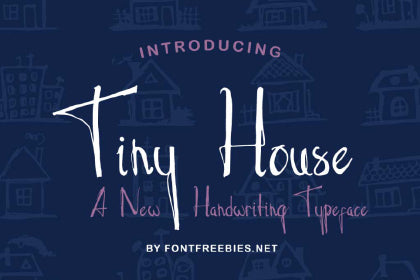
Free Tiny House Handwriting Font
Featuring a free tiny house handwriting font. This typeface file was found from the amazing source called Free Design Resources. Showcase your designs like a graphic design pro by adding a new touch with this beautiful font.